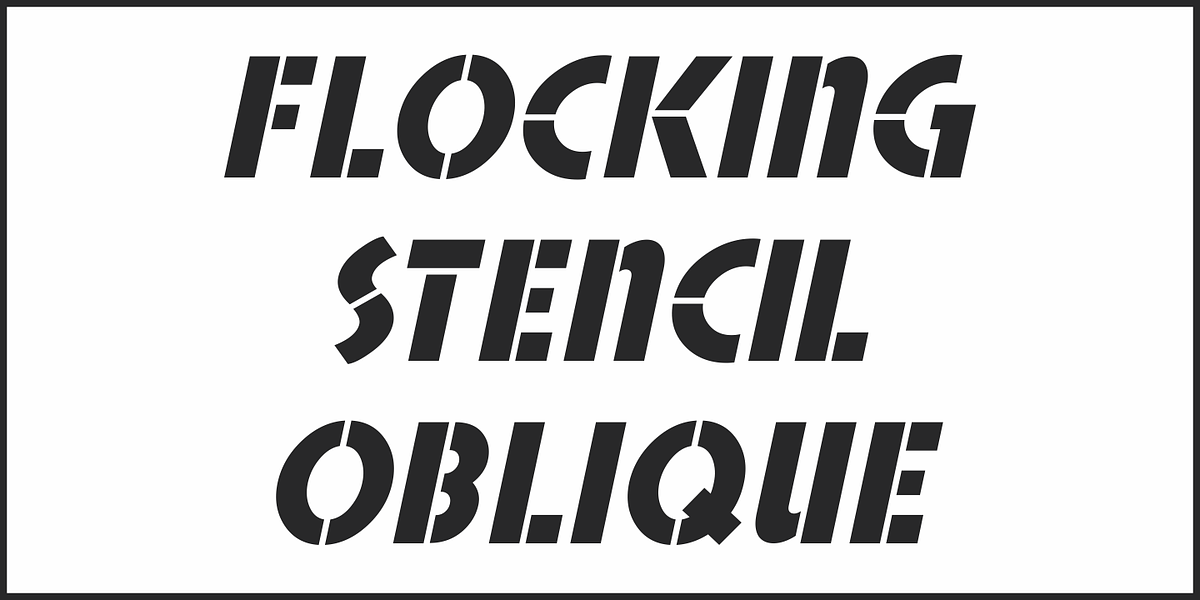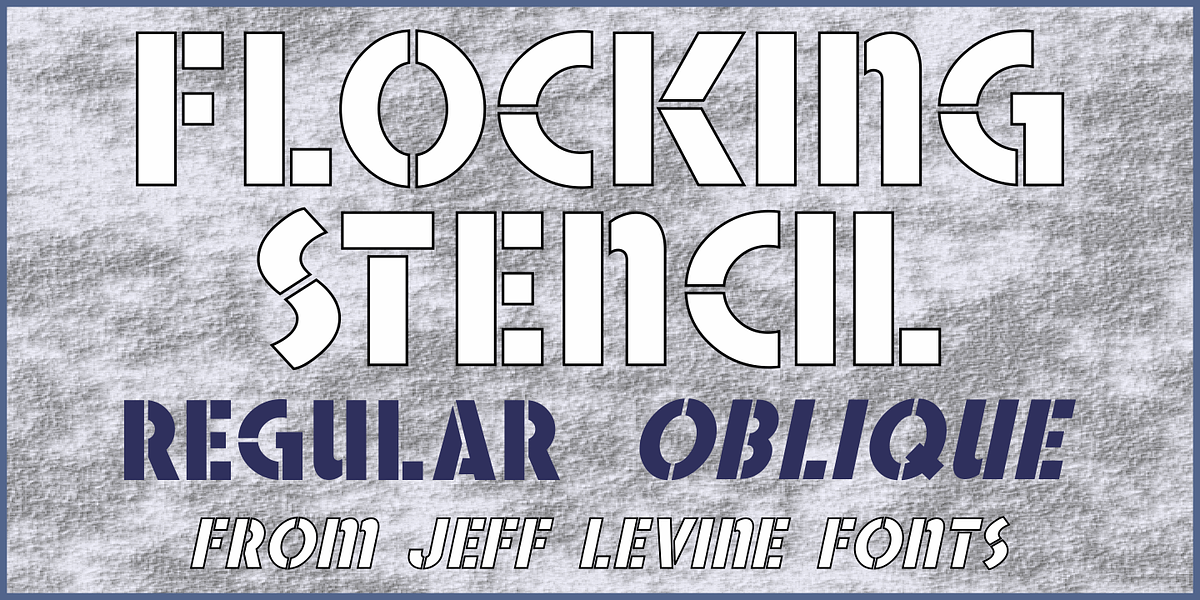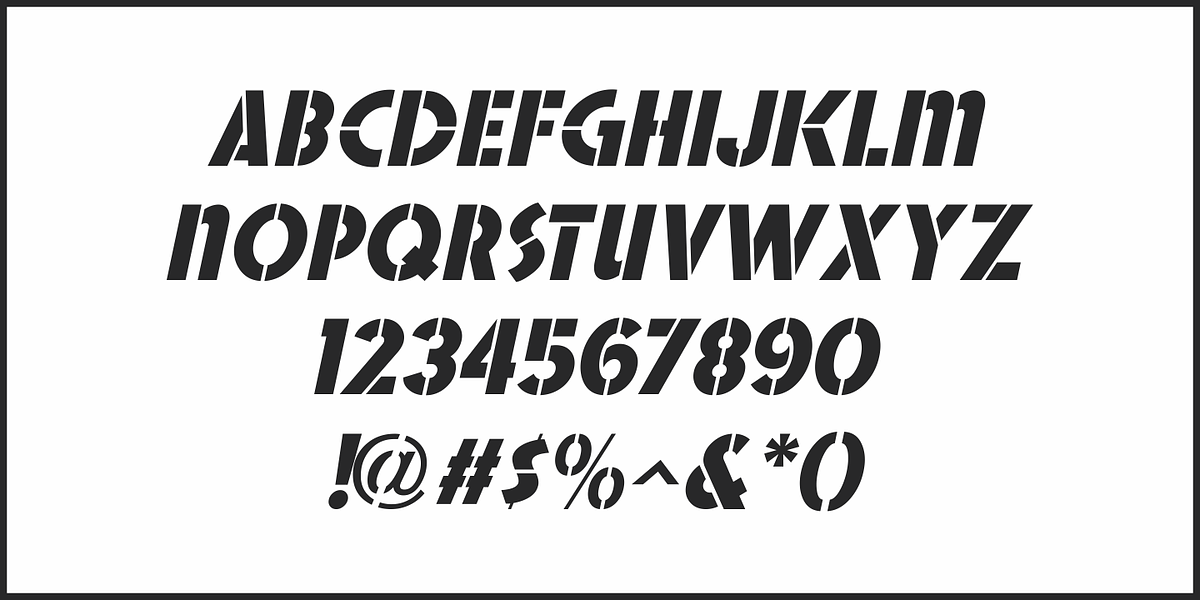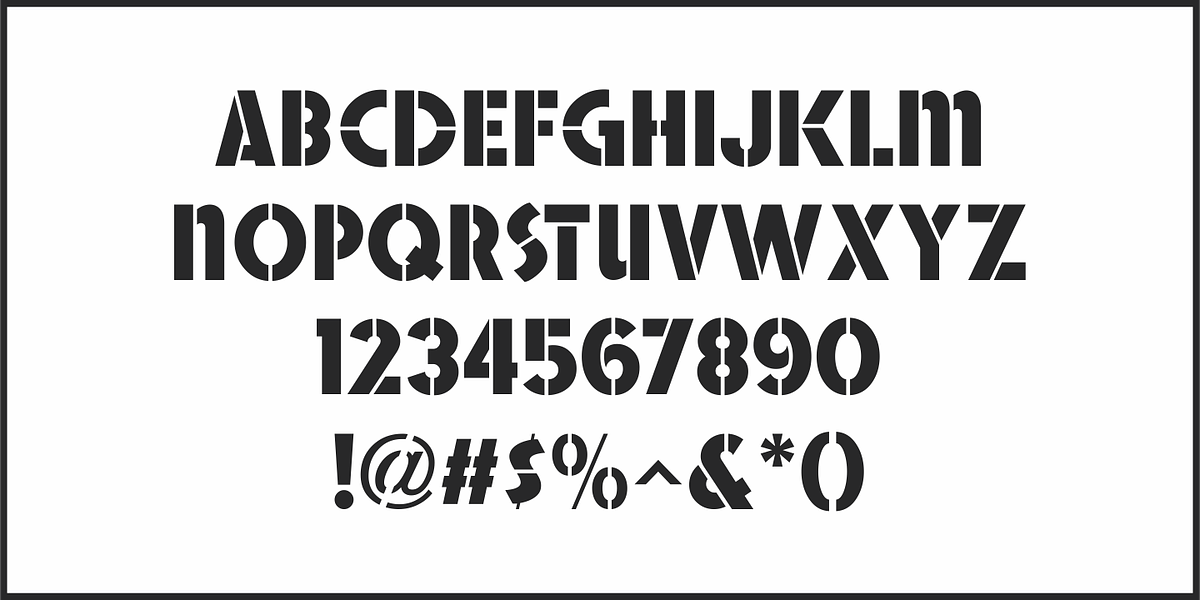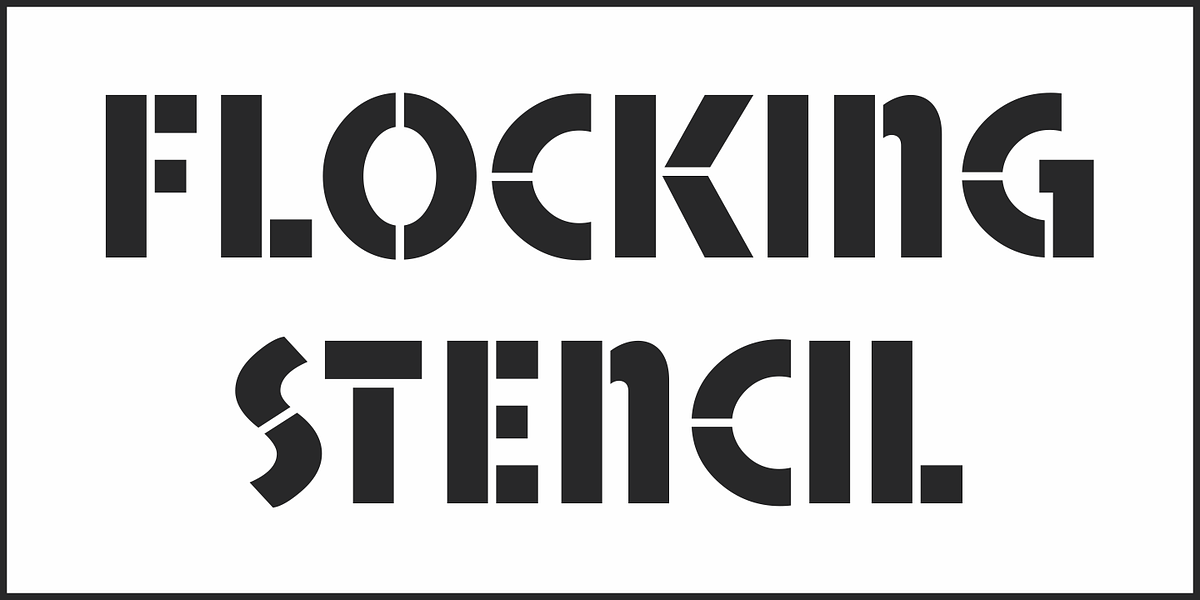
Flocking Stencil JNL
Vintage packaging for Frosty Stencil Flock contained the hand lettered term “spray flock” which served as the basis for Flocking Stencil JNL; available in both regular and oblique versions.
Commonly referred to as “Spray Snow”, these kits of holiday stencils and spray cans were a popular item in the households of the 1950s and early-to-mid 1960s.